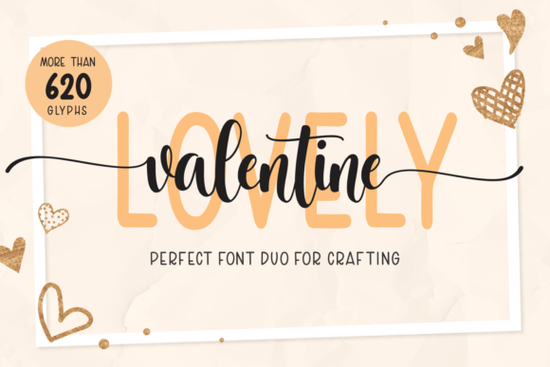
If you’re looking for a font that feels like a handwritten note from a friend, the Lovely Valentine Duo Font might be just what your next project needs. It’s a pair of fonts one clean sans, one flowing script designed to work together or stand alone. Whether you’re making Valentine’s cards, branding a small bakery, or personalizing a gift tag, this duo adds warmth without feeling overly fussy.
What makes this font duo different from other script fonts?
Many script fonts can feel either too stiff or too wild. Lovely Valentine strikes a balance it’s legible but still full of character. The script version has gentle curves and soft connections between letters, while the sans-serif companion keeps things grounded when you need clarity. Think of it like pairing a cozy sweater with crisp jeans: one brings comfort, the other structure.
You’ll find similar charm in fonts like Summertime Sadness, which leans more casual, or Magnolia, which has a bolder, brush-like presence. But if you want something that feels intimate and sweet not loud or trendy this duo holds its own.
When should I use the script vs. the sans version?
The script font shines in places where emotion matters: wedding invites, love notes, packaging for handmade goods, or social media quotes that need to feel personal. Use it sparingly for headlines or short phrases it’s not meant for paragraphs.
The sans version? That’s your workhorse. Great for dates, addresses, product labels, or any supporting text that needs to stay readable at smaller sizes. Together, they create contrast without clashing perfect for layered designs or branding systems that need both personality and practicality.
Is this font good for print-on-demand or small business use?
For comparison, something like Brush Handmade might feel more textured and artsy, while Signature leans into formality. Lovely Valentine sits comfortably in the middle approachable, versatile, and ready to adapt.
How does it pair with other fonts or design elements?
This duo plays well with minimalist layouts. Try pairing the script with a simple geometric sans (not included) for modern contrast, or let the sans-serif version sit beside floral illustrations or watercolor backgrounds for a soft, romantic vibe.
Any tips for getting the most out of this font?
- Use OpenType features if your software supports them, enable stylistic alternates or ligatures for extra flair in the script version.
- Adjust letter spacing slightly sometimes tightening or loosening tracking by 5–10 points helps the script flow better.
- Mix weights intentionally even though there are only two styles, using size and color contrast can create hierarchy without needing bold or italic variants.
- Try it in unexpected places recipe cards, podcast cover art, chalkboard signs, or even embroidery digitizing templates.
If you’ve enjoyed fonts like Handwriting for their natural imperfections, you’ll likely appreciate how Lovely Valentine keeps that human touch without sacrificing polish.
Who is this font NOT for?
If you’re designing something corporate, ultra-modern, or strictly minimalist, this might feel too soft. It’s also not ideal for body text or interfaces where readability at small sizes is critical. And if you prefer fonts with dozens of weights and swashes like some display-heavy script families you might find this duo a bit restrained.
But restraint is part of its charm. It doesn’t shout. It whispers in the best way.